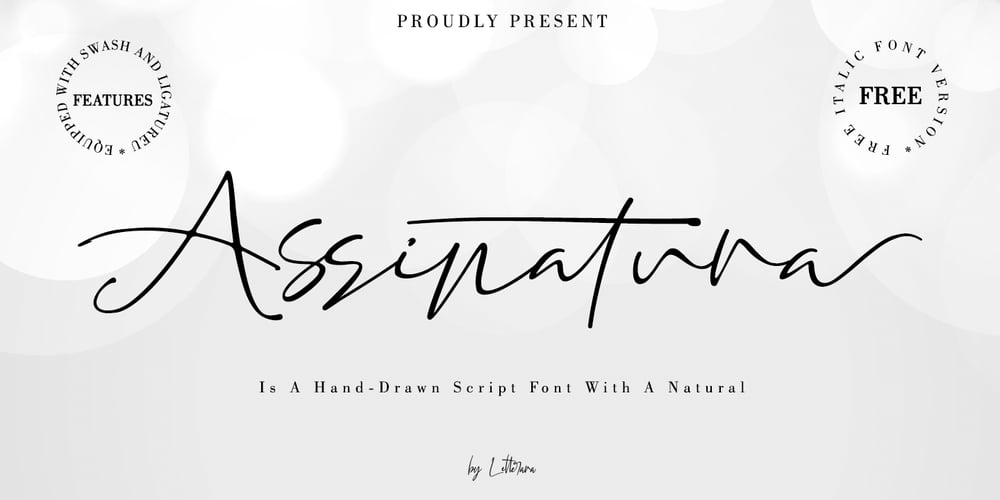
Assinatura
Assinatura font
Assinatura Font Family was designed by Thomas Aradea and published by Letterara. Assinatura contains 2 styles and family package options. Assinatura comes from Portuguese which means signature. Assinatura is a hand drawn script with a natural style. This signature script moves with ease across any design, and adds a large dose of confidence and style.